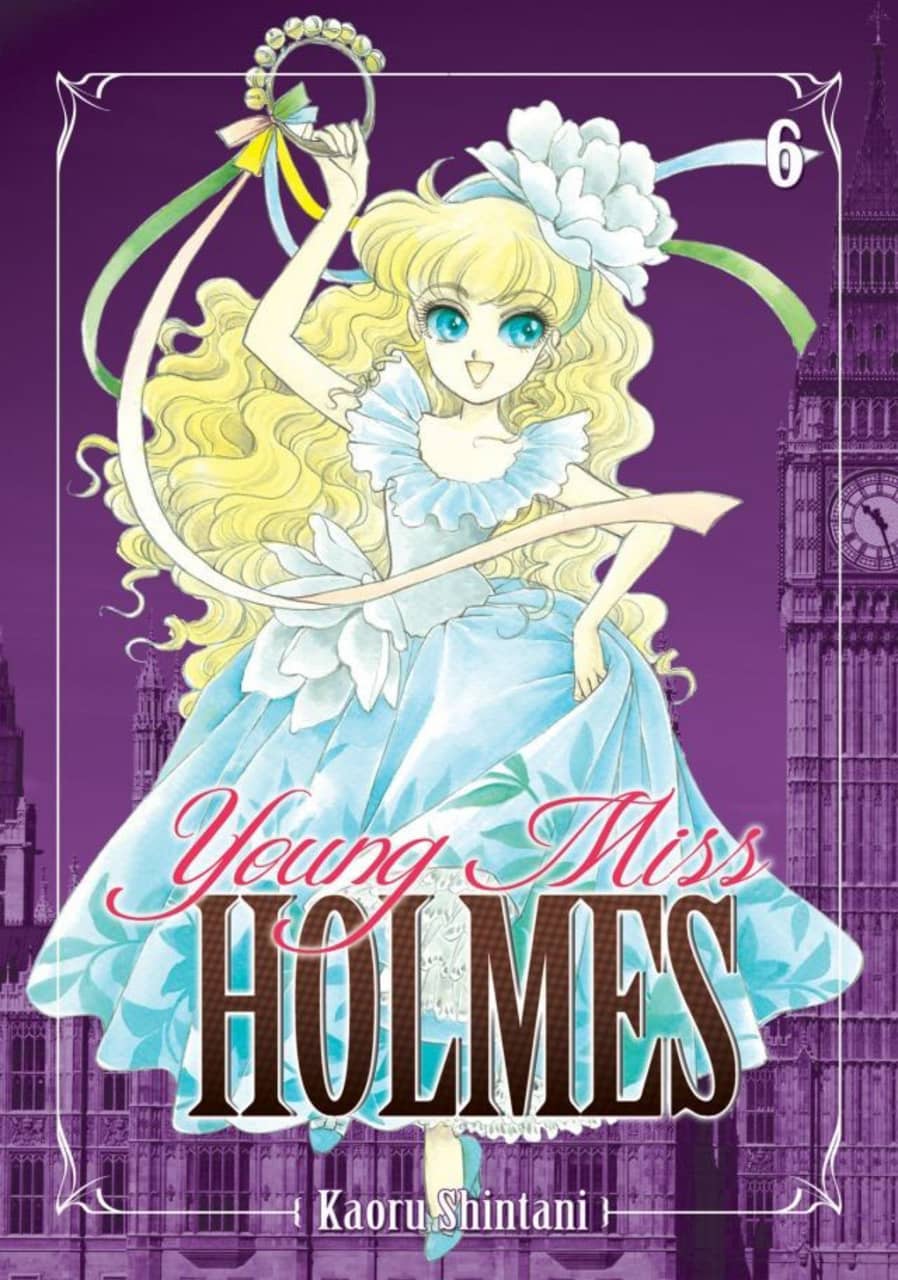
Young Miss Holmes Font
BookYoung Miss Holmes is a manga series written and illustrated by Kaoru Shintani. It follows the adventures of a young and brilliant detective, Miss Holmes, the 10-year-old niece of Sherlock Holmes as she solves crimes and mysteries using her keen intellect and deductive skills.
The manga series' title is set in two fonts: the "Holmes" part is a condensed serif called Birch. An Adobe Originals typeface designed in 1990 by Kim Buker Chansler, and based on a Latin Condensed wood type found in an 1879 William Page specimen book. The "Young Miss" part uses a calligraphic font that is very similar to Shit Happens by Billy Argel.